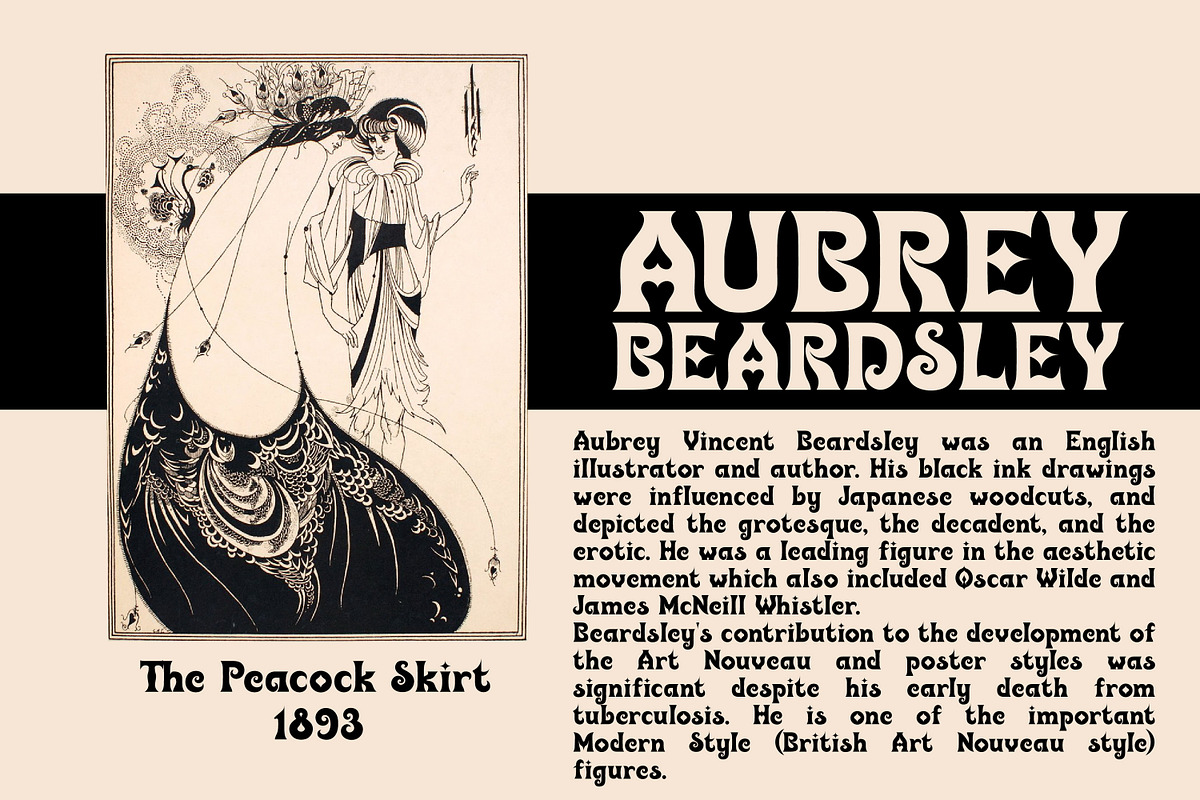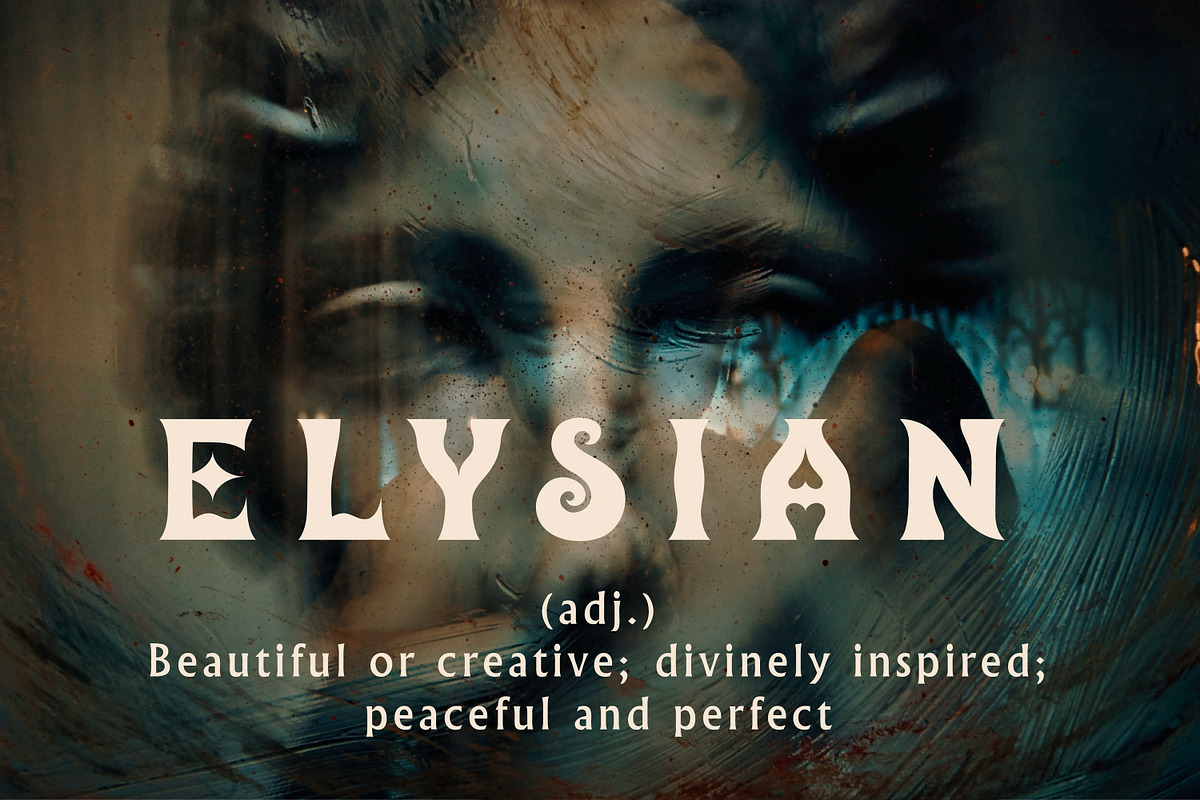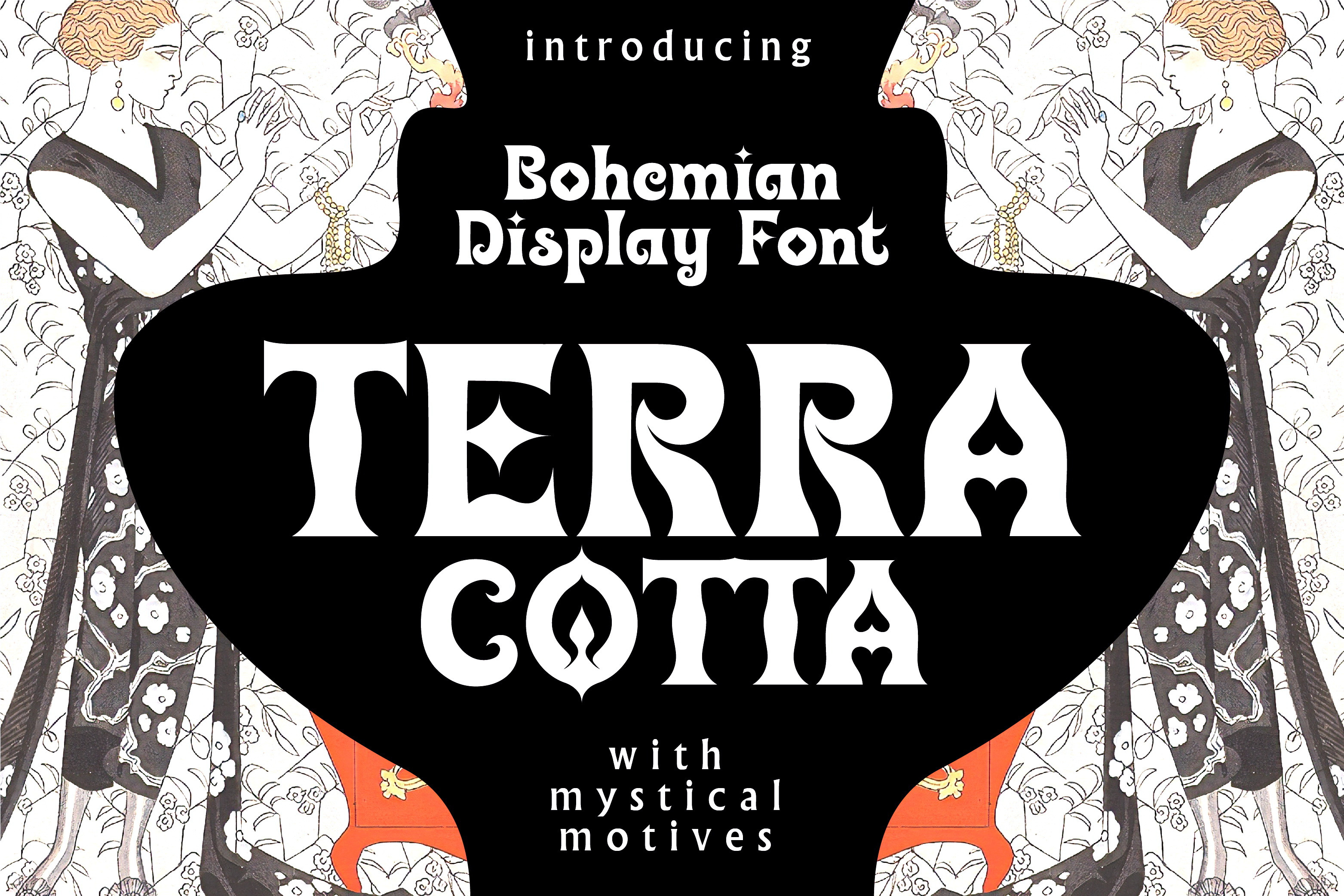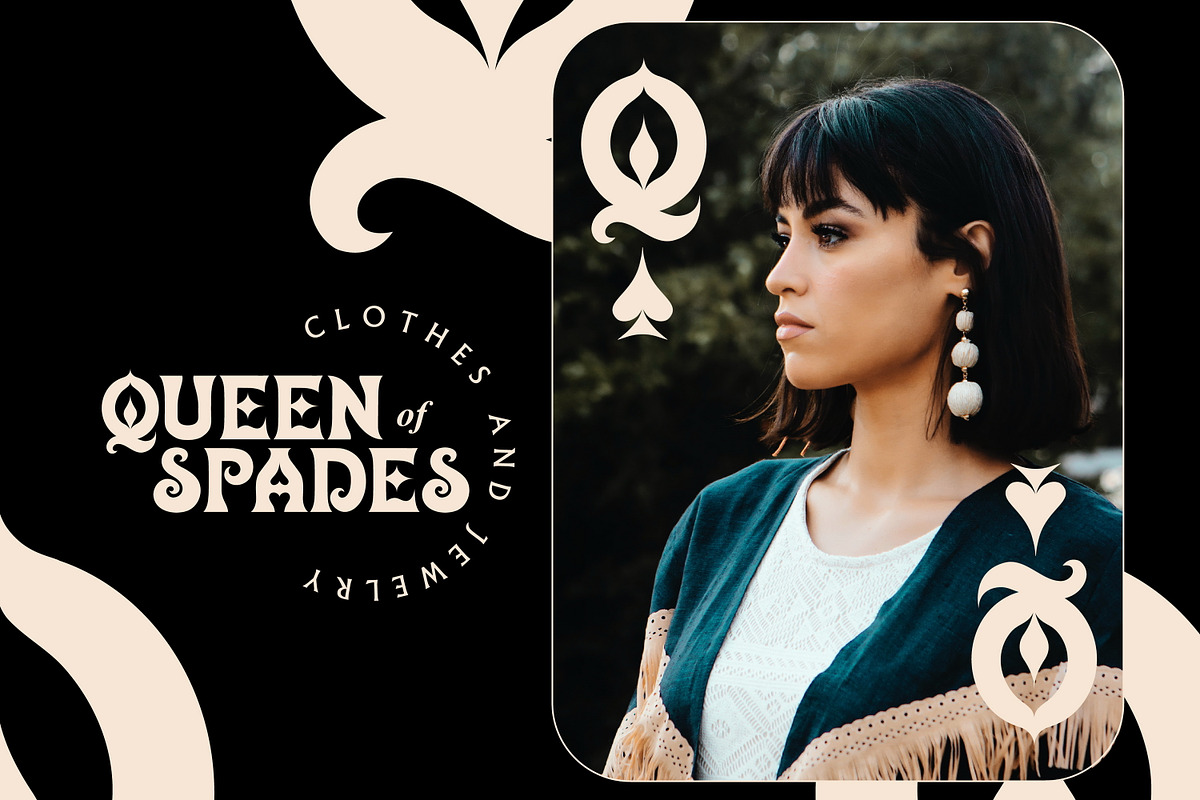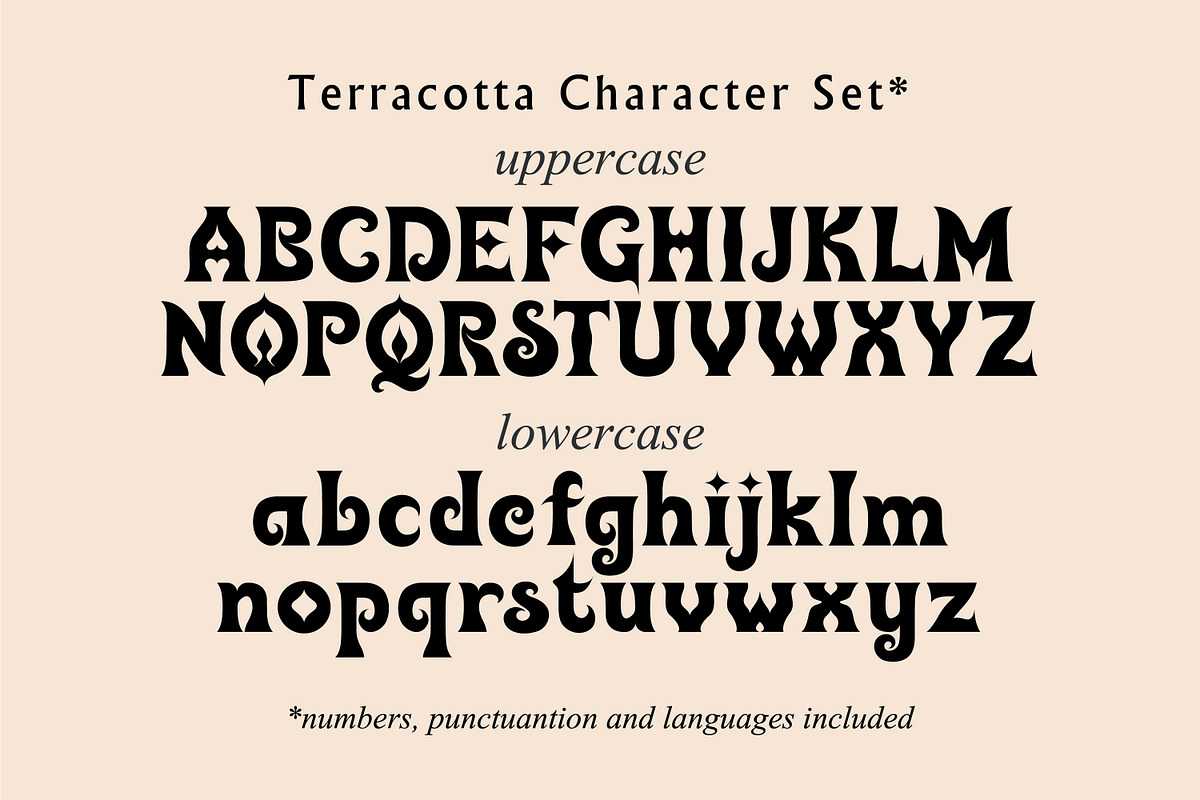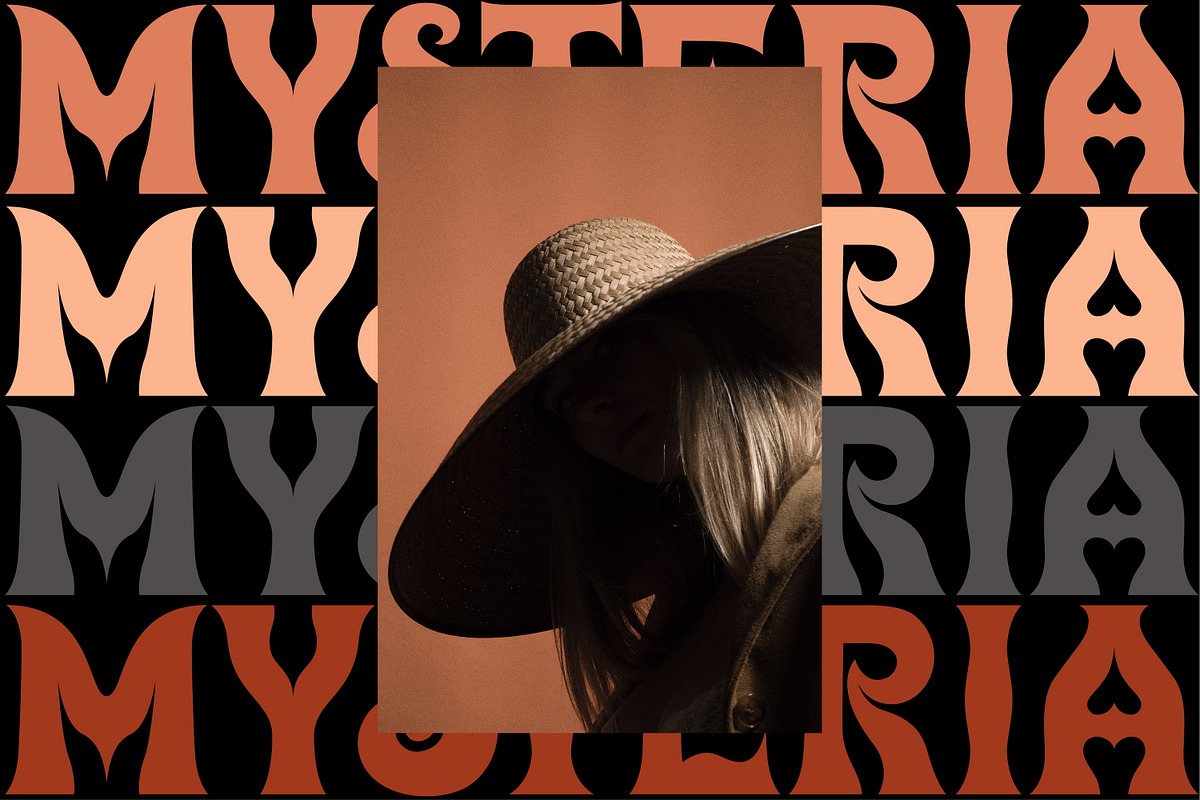
Terra Cotta - Bohemian Display Font
Terracotta is a modern display font with mystical and Art Nouveau motives. The font is created in Bohemian style and decorated with swirls and peaks. Terracotta is suitable for the design on the theme of tarot, mysticism, spirituality, fortune-telling, handcrafts (ceramics, creating candles, soap making ect).